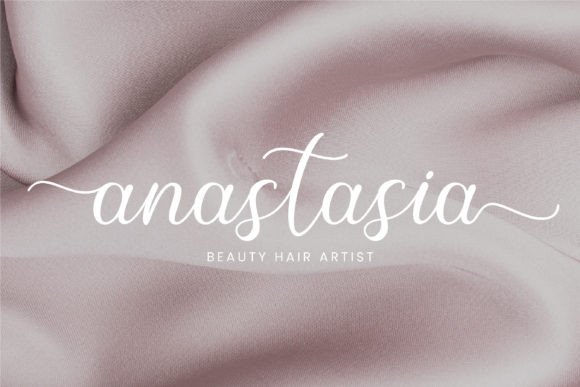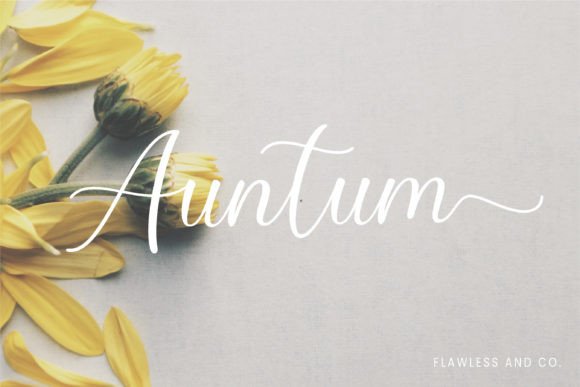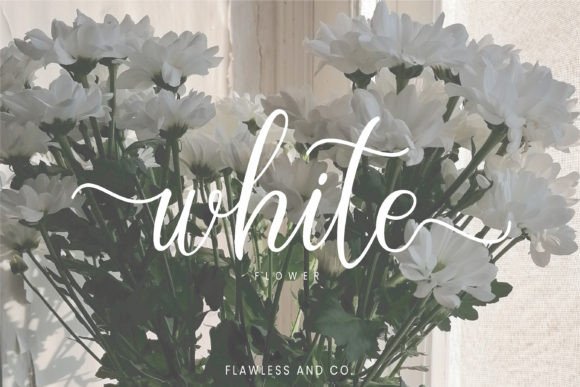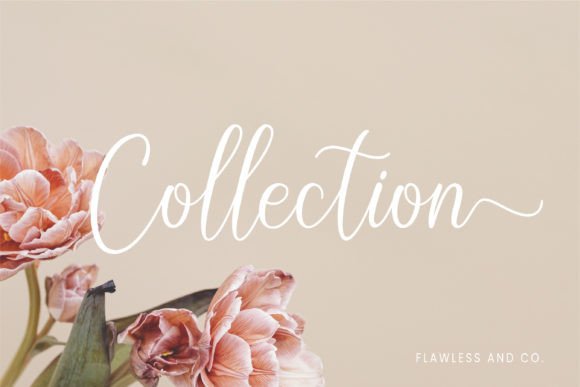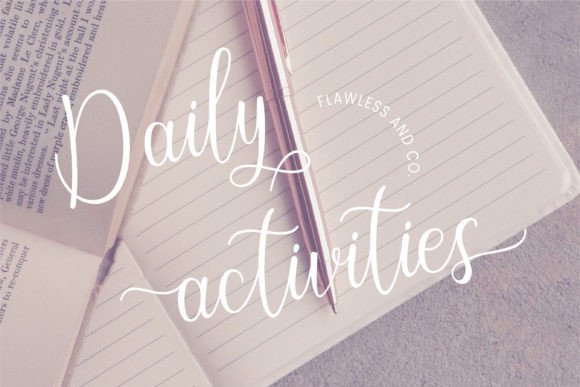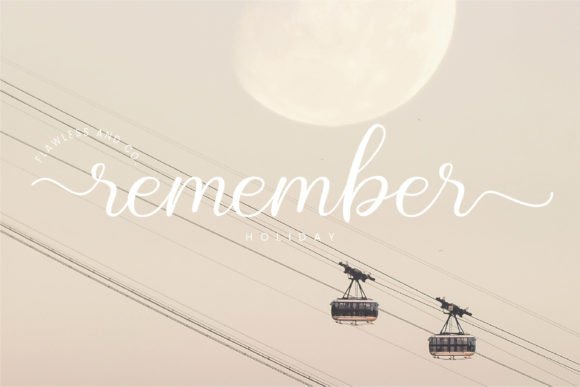
Introduction to Morettaa Font
Have you ever found yourself rummaging through your design files, searching for the perfect font to match your creative vision? It’s a feeling we’ve all experienced, especially when working on a high-stakes project. For designers, the right font can make all the difference between a mediocre design and a stunning one. That’s why we’re excited to introduce you to the beautiful Morettaa Font, a handwritten script font that’s sure to elevate your creative projects.
With its sweet and girly style, Morettaa Font is perfect for designing everything from wedding invitations to quotes and posters. But what really sets it apart is its PUA encoded feature, which allows you to access all the delightful glyphs and swashes effortlessly. This means you can create high-quality designs with a transparent background, without the hassle of manually inserting special characters.
Key Features of Morettaa Font
- High-quality design resource ideal for creative projects, offering a unique and elegant aesthetic.
- Features a transparent background, allowing for seamless integration with various design elements and backgrounds.
- Designed with a focus on high-quality typography, ensuring crisp and clear text at resolutions up to 300 DPI.
Honest Review: Morettaa Font
As a designer, I’m always on the lookout for high-quality design resources to elevate my creative projects. The Morettaa Font is one such resource that caught my attention.
Here’s what works well: ✨ The font’s unique blend of modern and vintage elements makes it perfect for projects that require a touch of sophistication. The transparent background allows for seamless integration with any design. The free download option is also a major plus for designers on a budget.
Here are some of the features that stood out to me:
- Unique blend of modern and vintage elements
However, there are a few limitations to consider: ⚠️ The font selection is limited, which may not be ideal for designers who require a wide range of options. Additionally, the font may not be suitable for projects that require a more playful or whimsical tone.
Overall, I’m impressed with the Morettaa Font. It’s a great design resource for designers who want to add a touch of sophistication to their creative projects. While it may have its limitations, I believe it’s a valuable addition to any design library.
The Morettaa Font is a free design resource ideal for creative projects. Its high quality and transparent background make it a versatile tool for various applications.
Tips for Getting the Most Out of Morettaa Font
Experiment with different font sizes and styles to create visually appealing designs. Use the transparent background feature to create layered designs.
Common Use Cases for Morettaa Font
The Morettaa Font is ideal for various creative projects, including logos, graphics, and typography-based designs. Use the font to add a touch of elegance and sophistication to your designs.